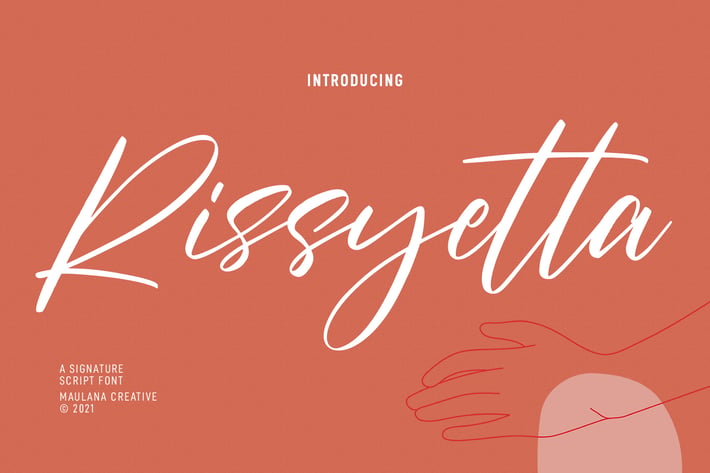
Rissyetta Signature Script Font
Rissyetta is a slanted signature script font. With light contrast stroke, fun character with a bit of ligatures. To give you an extra creative work. Rissyetta font support multilingual more than 100+ language. This font is good for logo design, Social media, Movie Titles, Books Titles, a short text even a long text letter and good for your secondary text font with sans or serif. Make a stunning work with Rissyetta font.